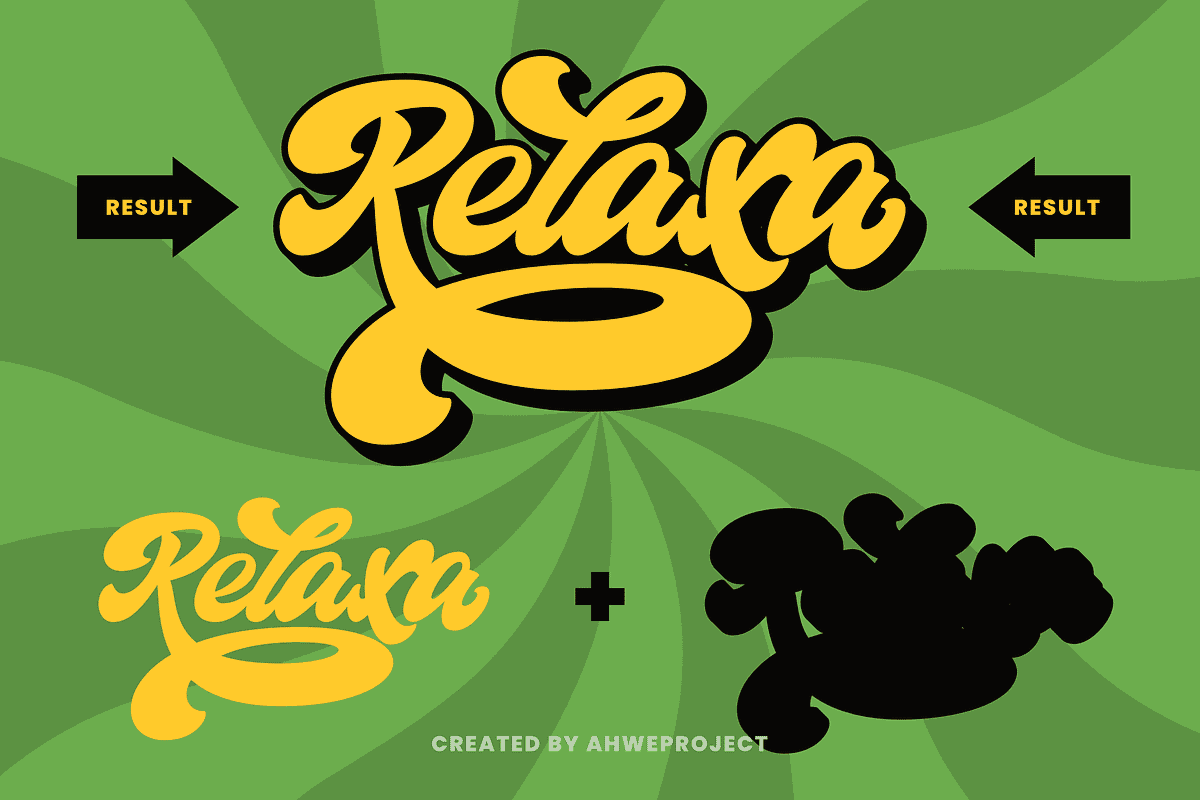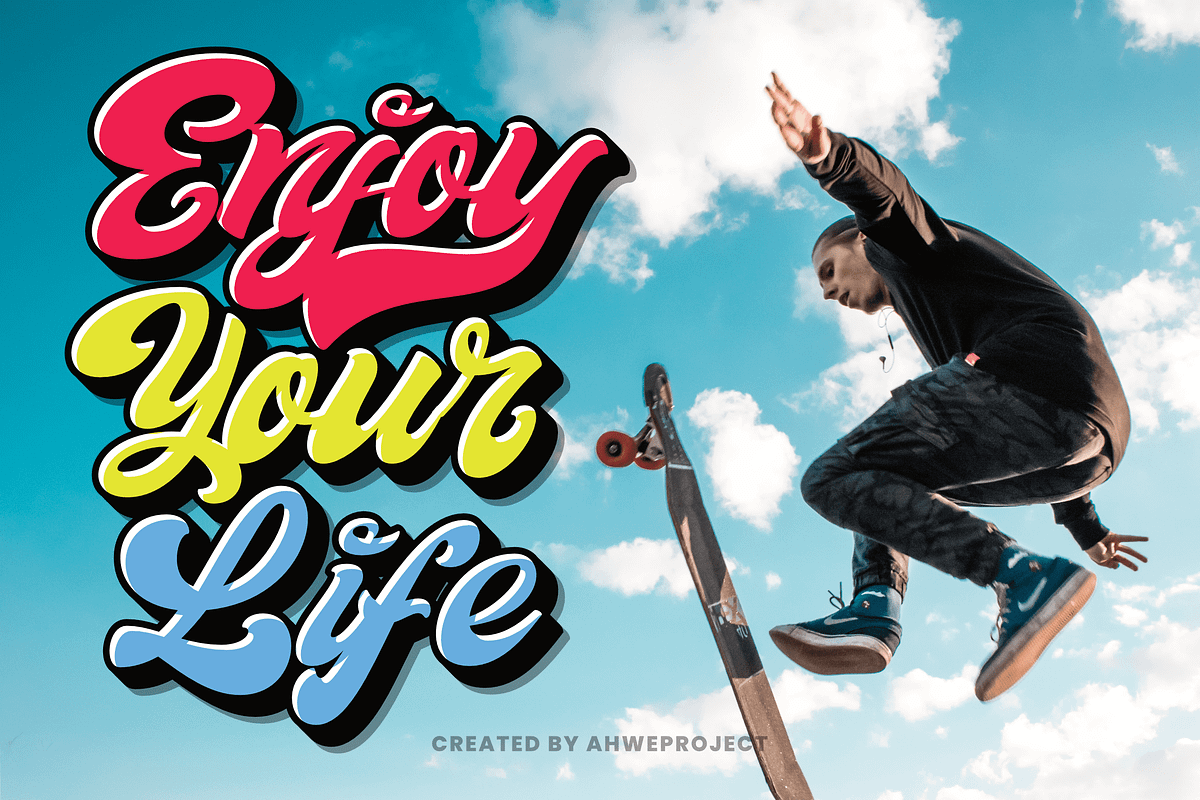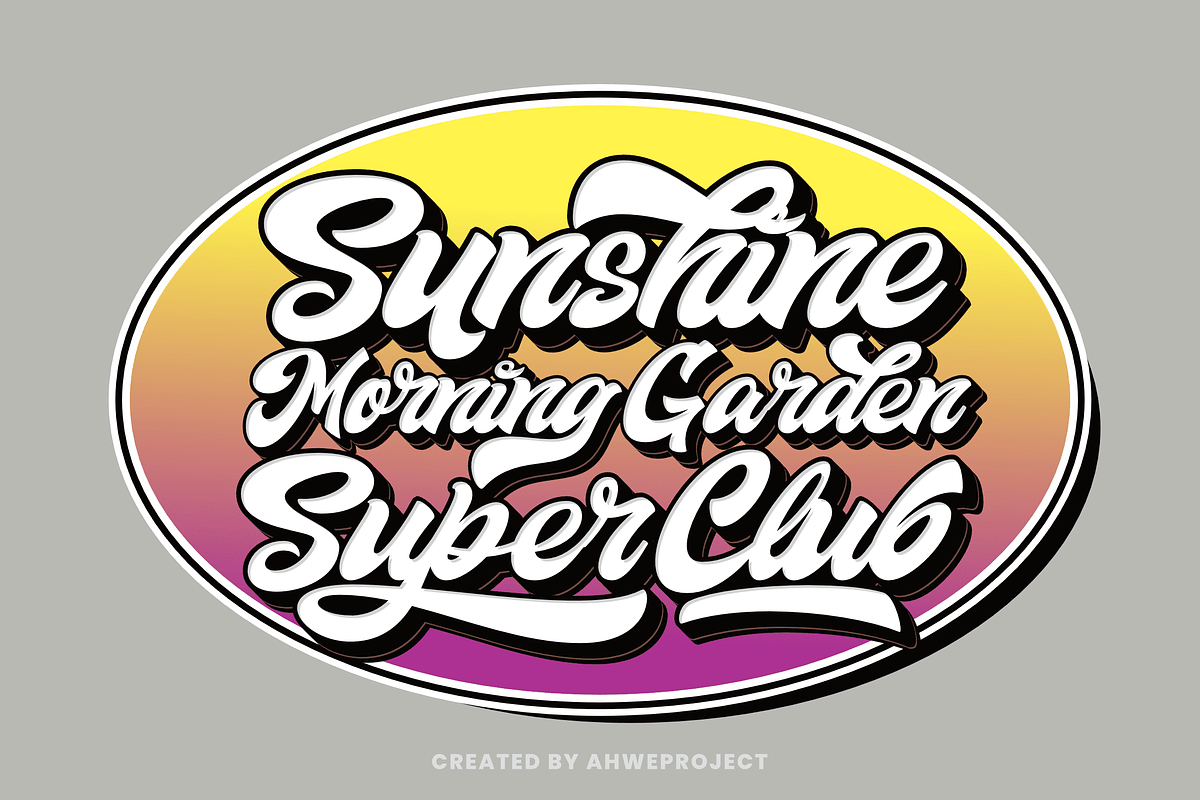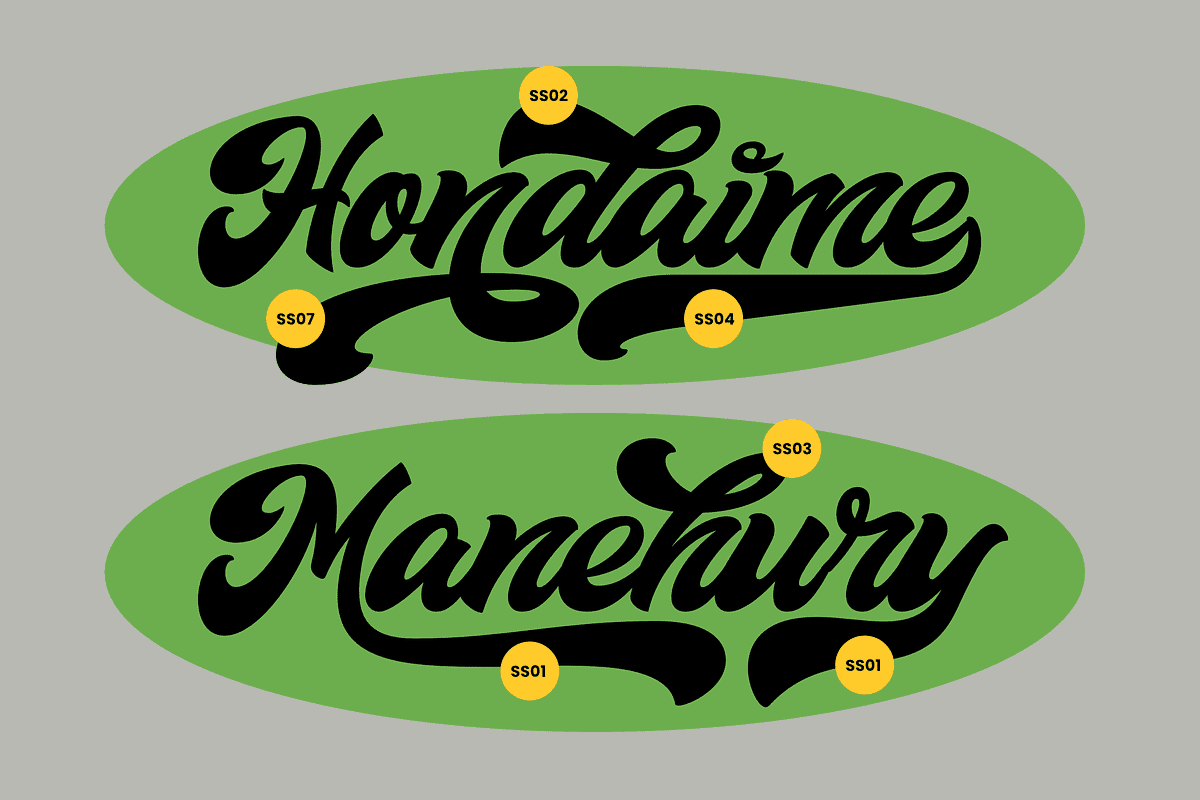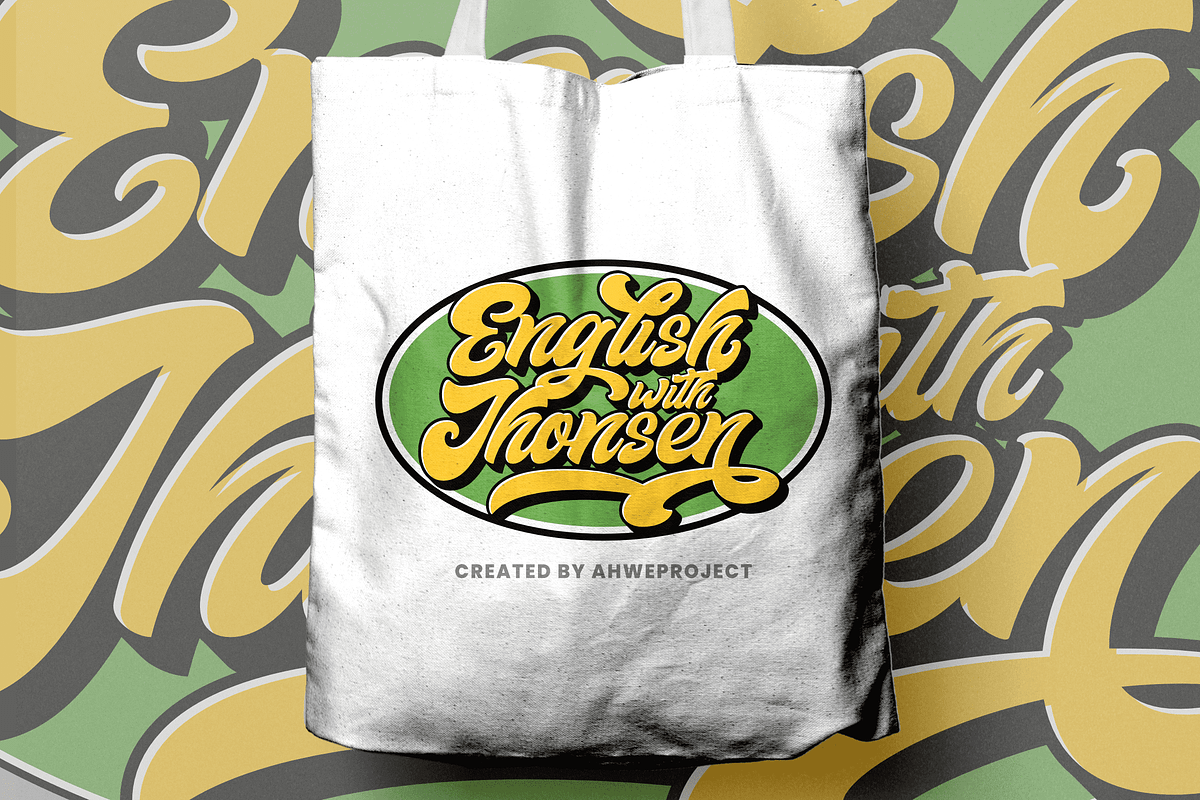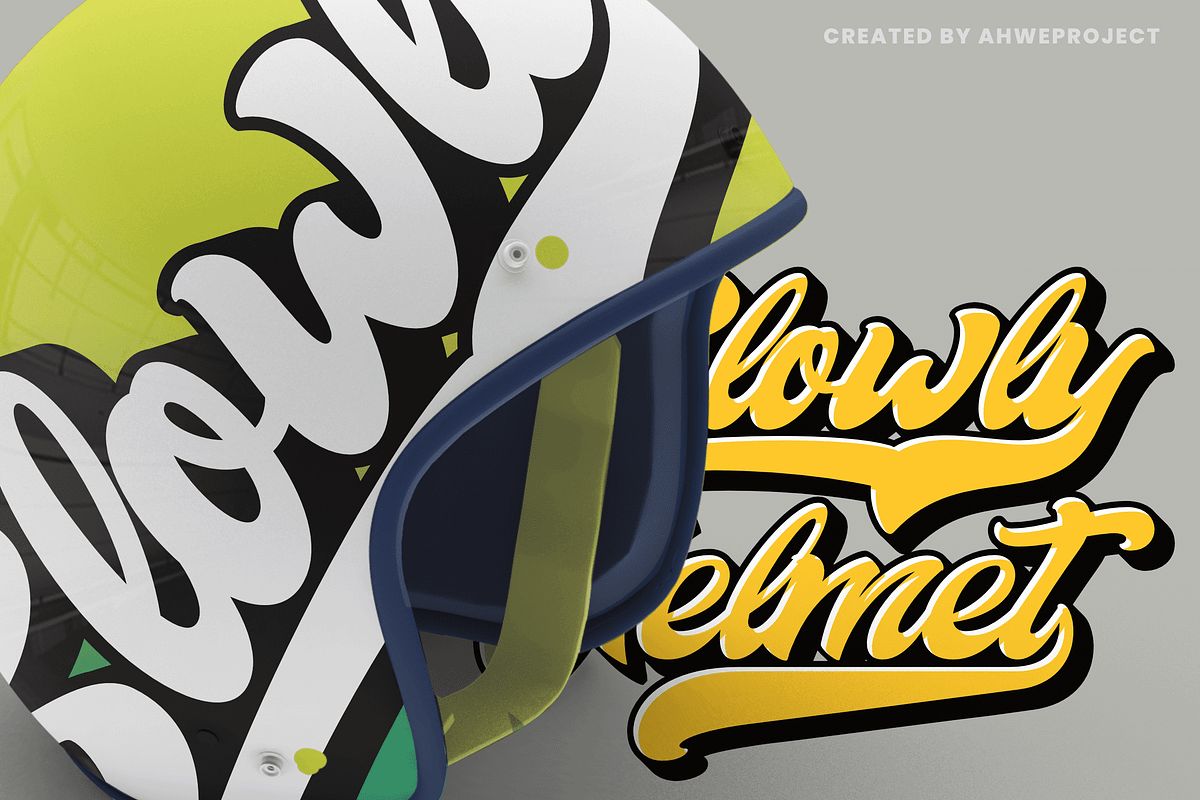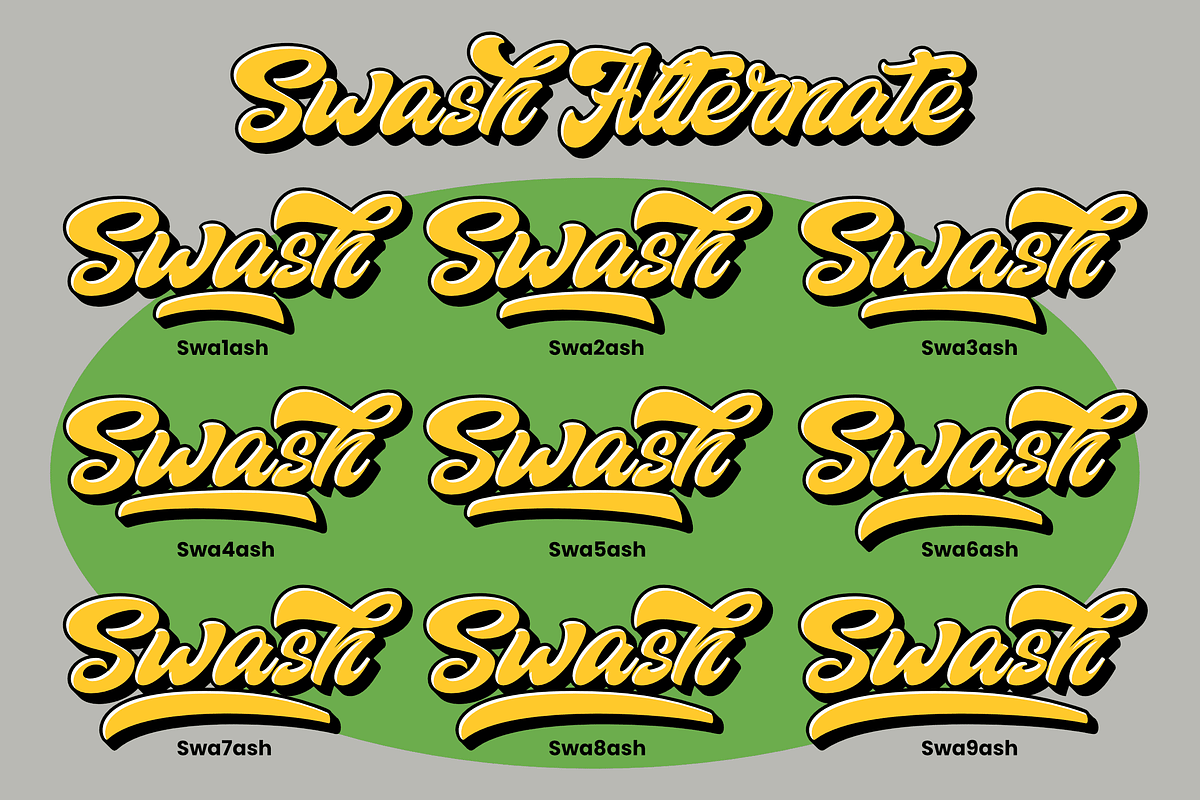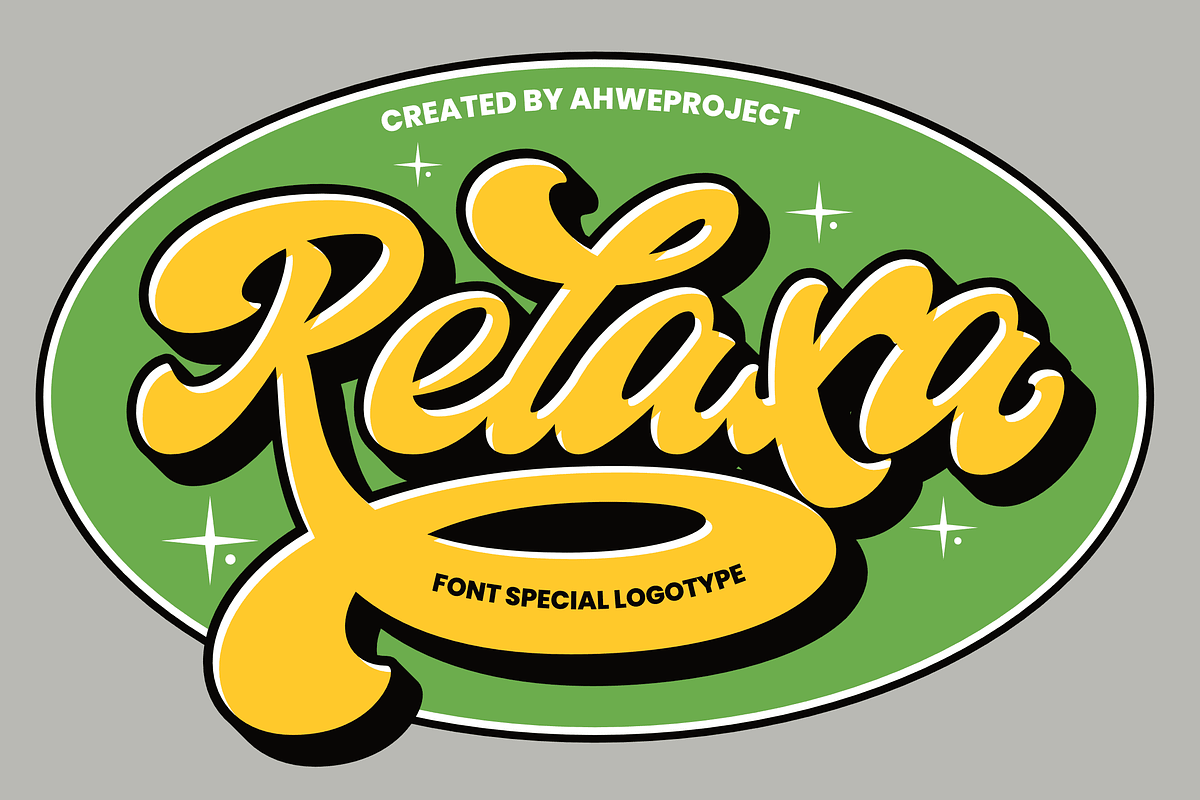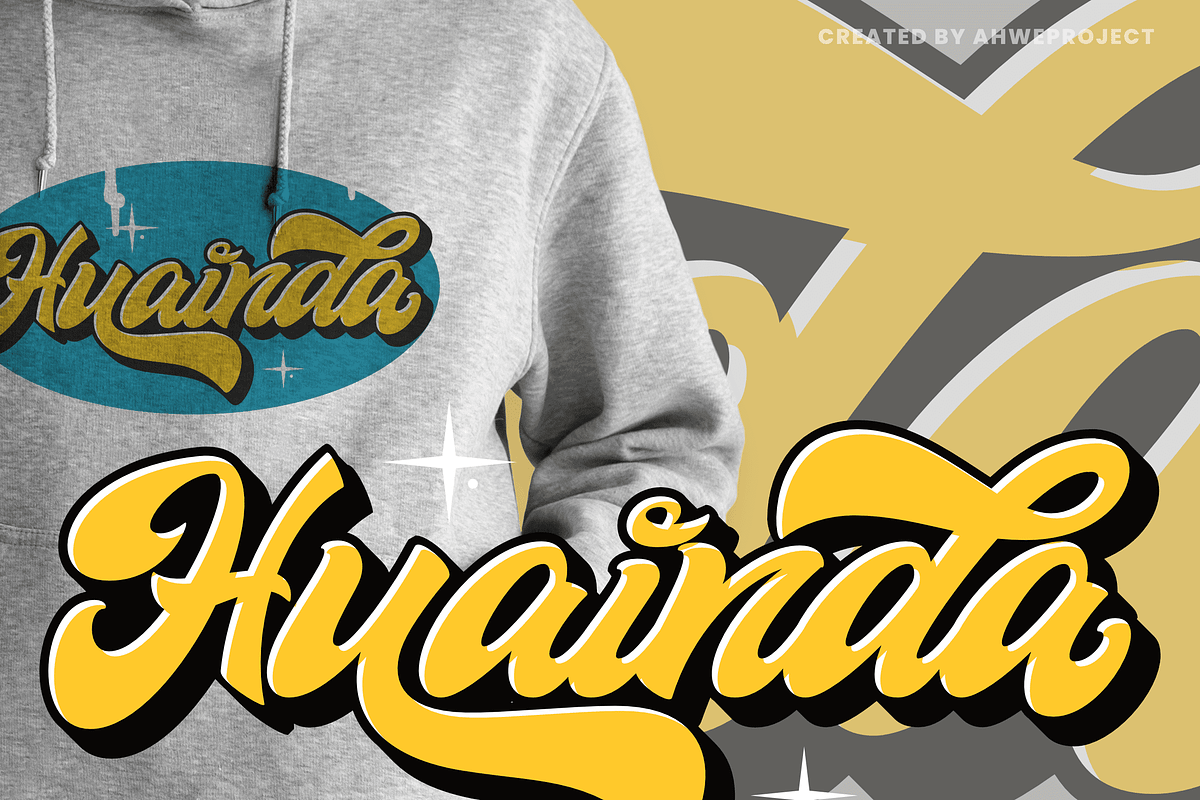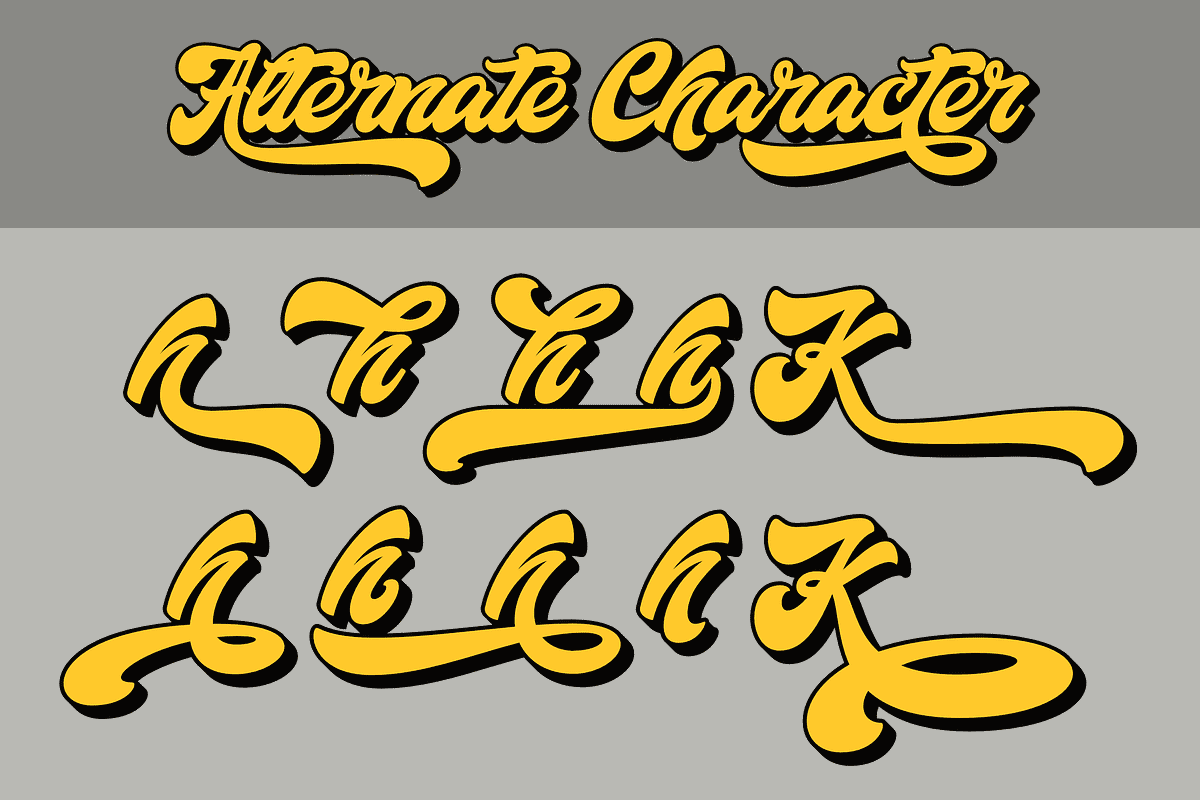
Relaxa
Relaxa is a fun, retro-style script display font that is ready to take your designs to the next level. Add it to your vintage-inspired posters, stickers, apparel, or social media posts and you will definitely impress your audience.